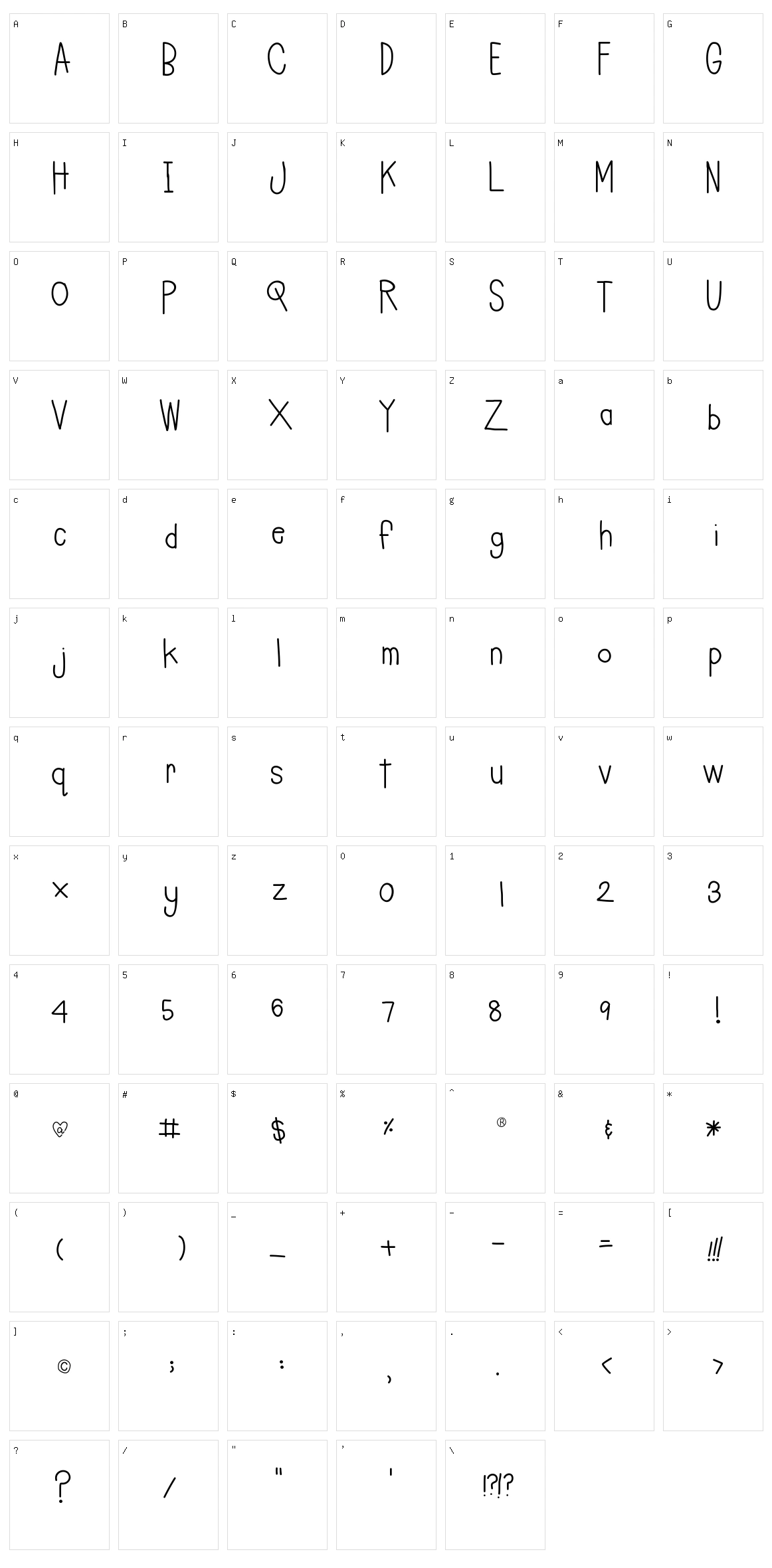
The free font Charlees In A Hurry is carefully designed by Charlee Sathiraboot, showcasing a thoughtful balance of creativity and usability and falls under the Script font style. When you download the ZIP file, it contains only 12.14 KB of font files, making it lightweight and quick to download. Please review the license details below to understand permitted usage and distribution rights. If license information is not available, we recommend using this font for personal projects only or contacting the author directly for commercial usage permissions.